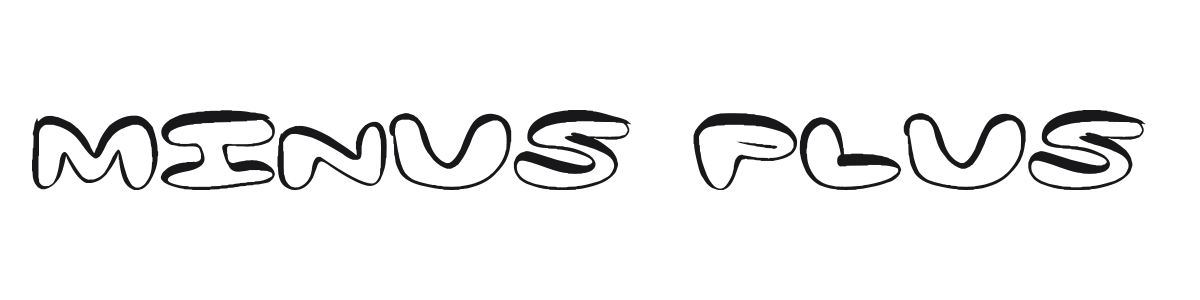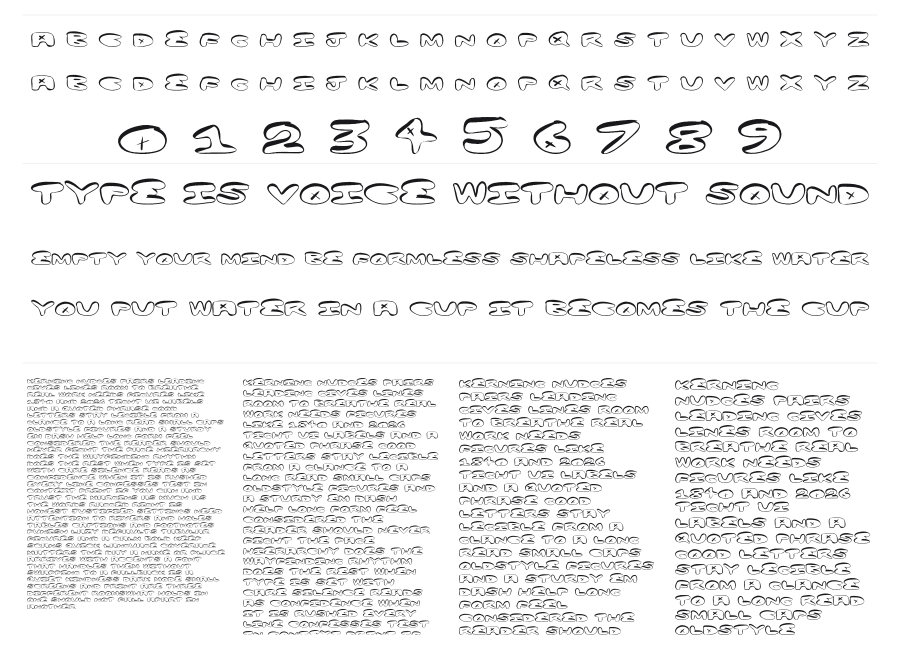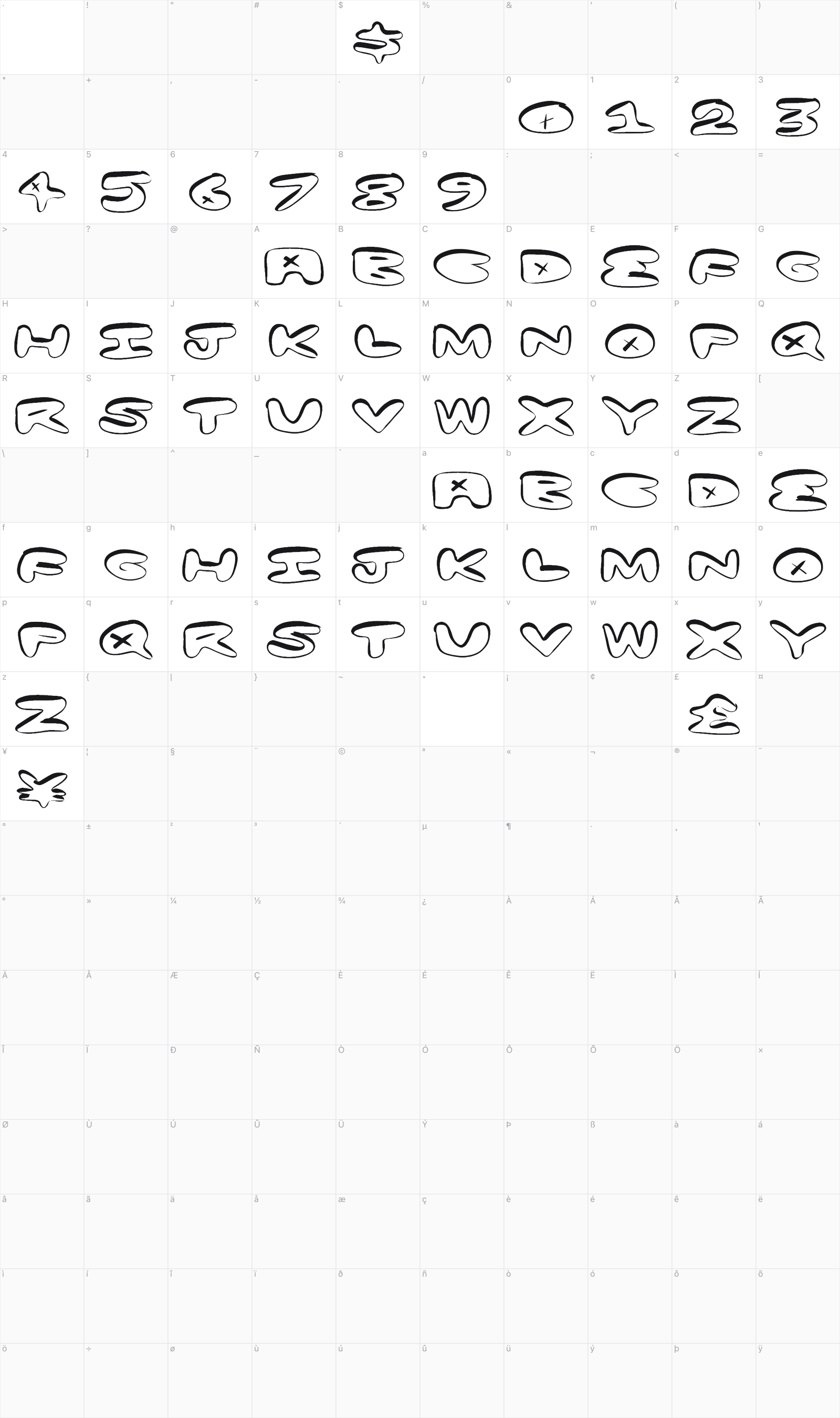
Minus Plus
Minus Plus is a chunky, rounded outline display font with a bold inline channel cut through each character, creating an inflated, dimensional look. The heavy outer stroke and white interior strip give every letter a comic-book quality that pops at large sizes. It leans into playful retro energy without being fussy.